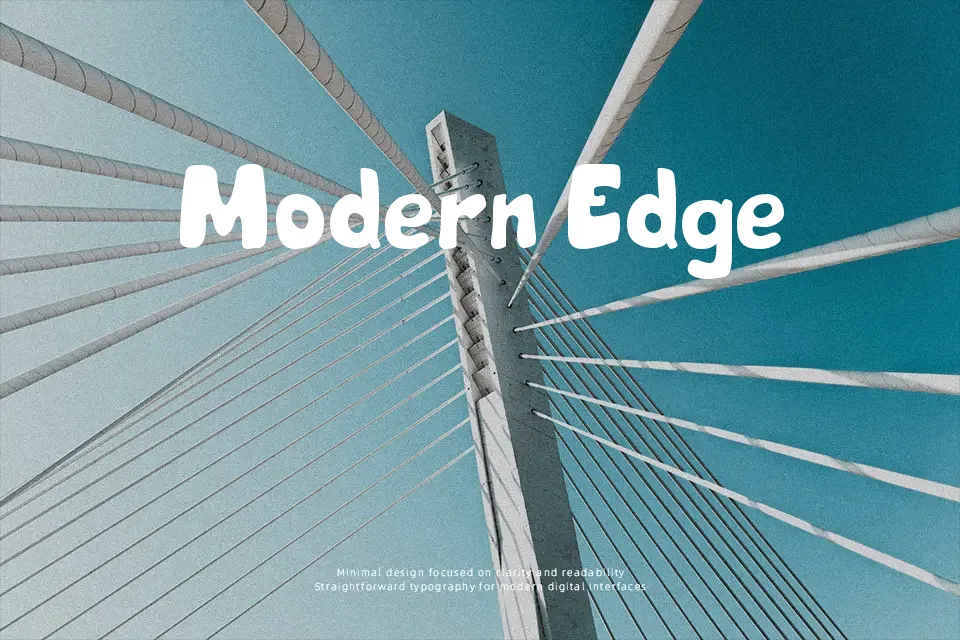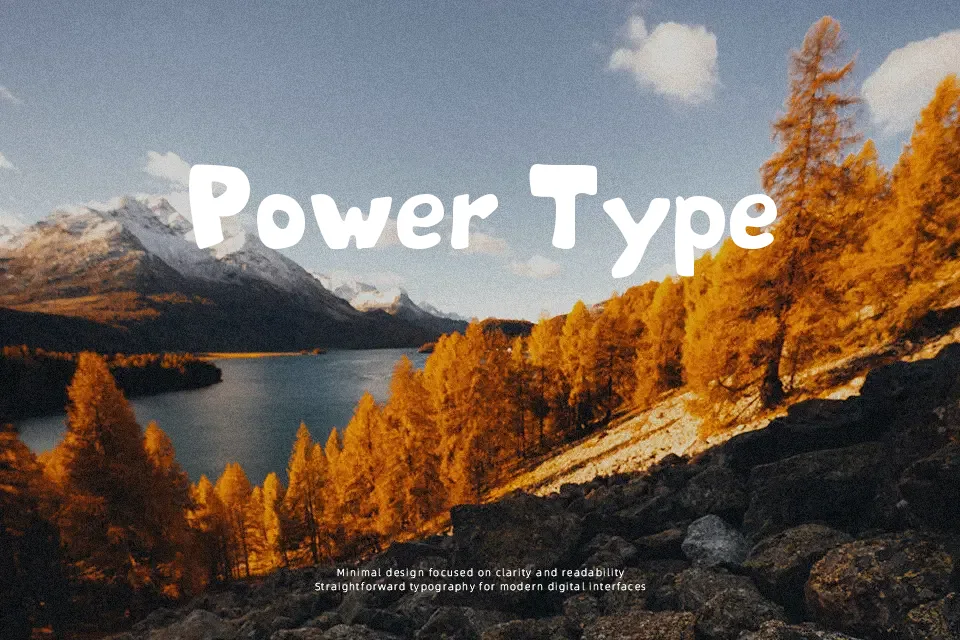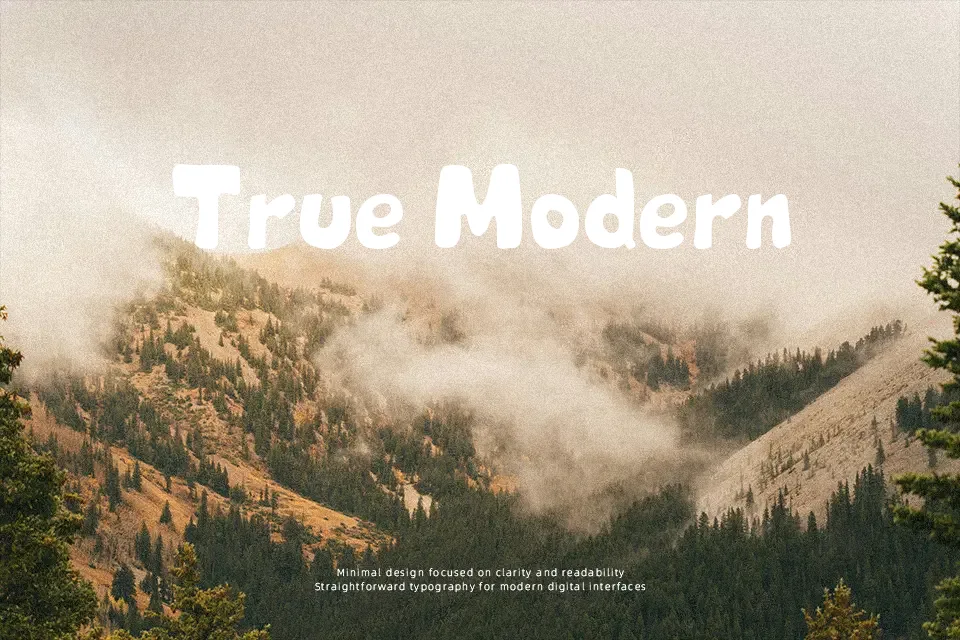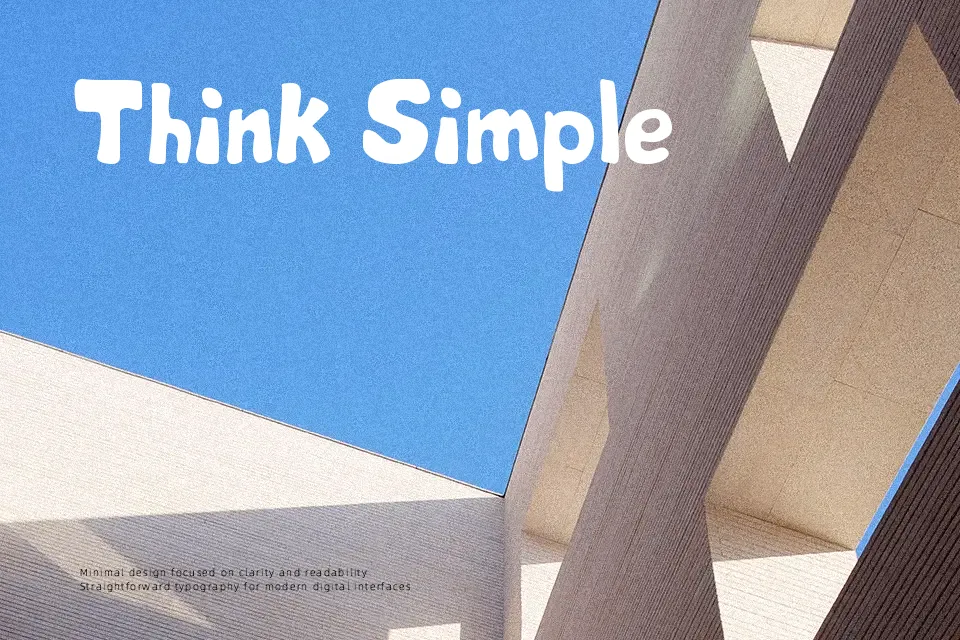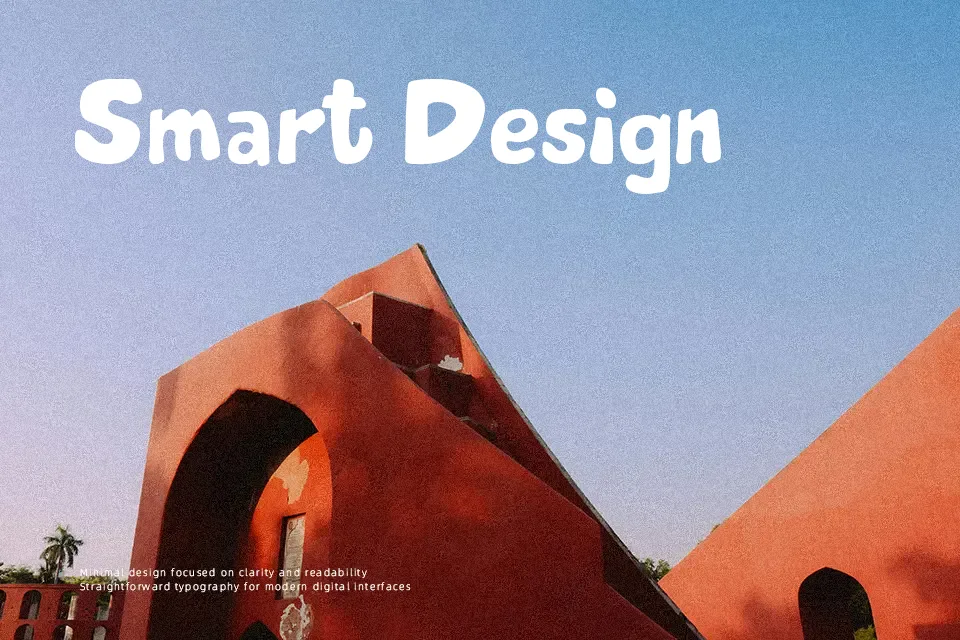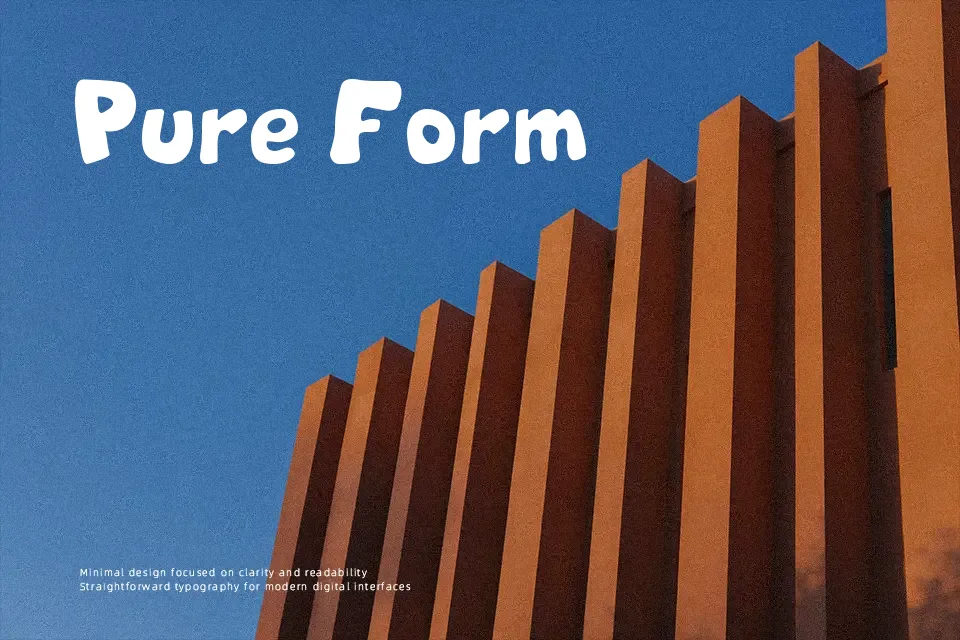
The Kings of the House Font
The Kings of the House Font commands attention with bulbous cartoon silhouettes, thick rounded strokes, and compact letter spacing that yield an energetic rhythm. Asymmetrical counters and undulating outer edges inject a spontaneous, hand-drawn character across uppercase and lowercase forms alike. Readability remains high in brief display phrases, where the substantial stroke weight anchors each character against colorful backgrounds. However, the cramped internal counters and heavy contours significantly diminish legibility in extended text settings. The design functions most effectively when given ample breathing room at prominent headline scales.
Best For: children’s book titles, comic book covers, toy packaging labels, animated video thumbnails
Not Ideal For: long body text, formal corporate documents, mobile app interface labels, dense editorial columns